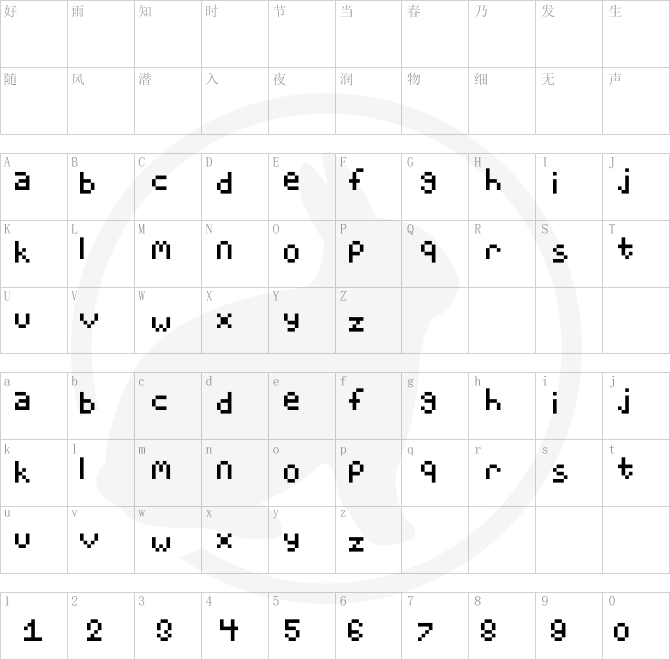
- Font Name:H5Bitjun
H5Bitjun.ttf is a very beautiful artistic font, H5Bitjun.ttf is widely used in the design and printing of various books and pictures,H5Bitjun.ttf has a strong visual impact,H5Bitjun.ttf is a commonly used font in newspapers, magazines and books, and is used in posters, e-commerce Poster design, store design, logo design, font design and other fields.H5Bitjun.